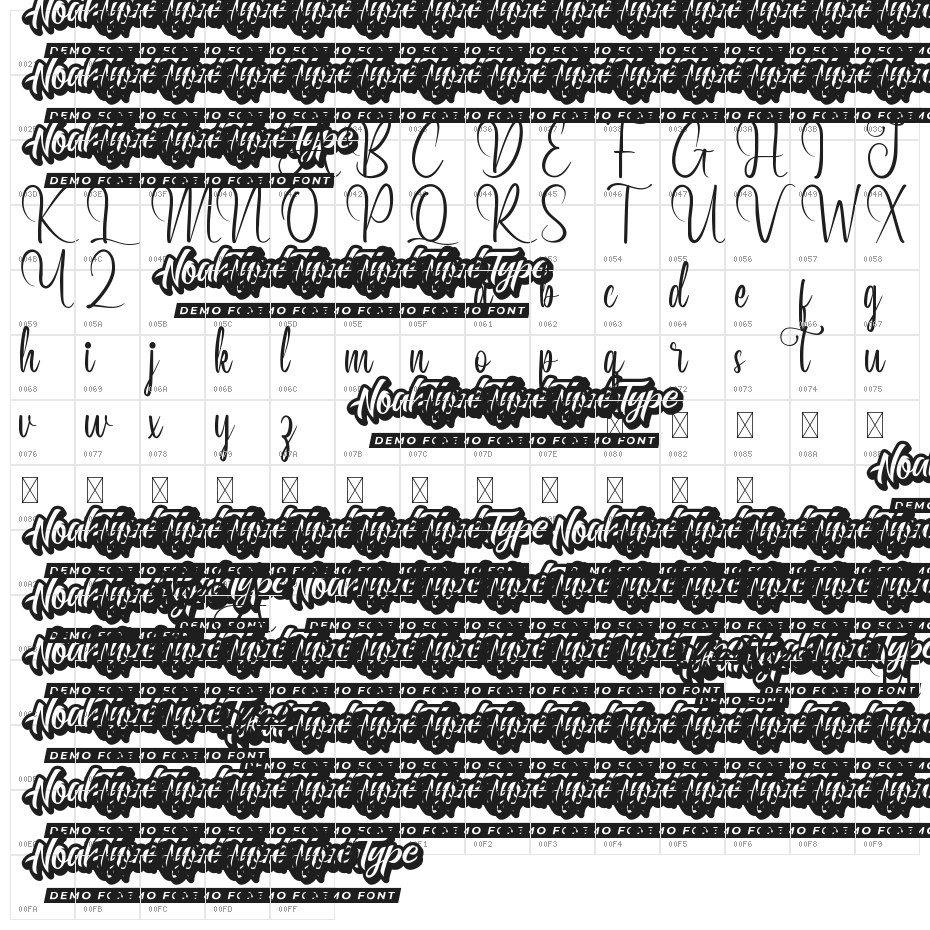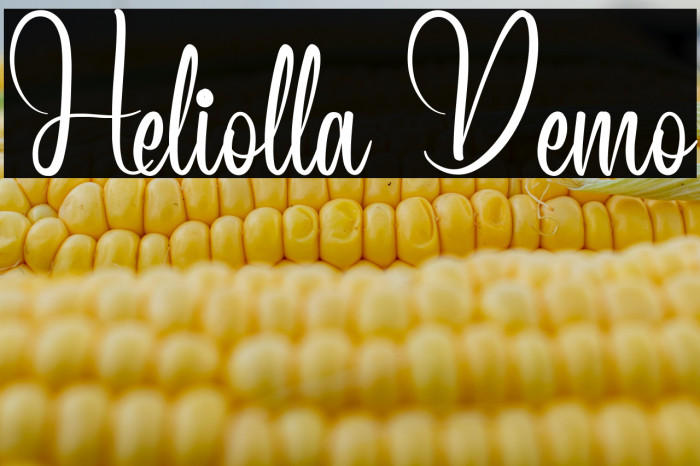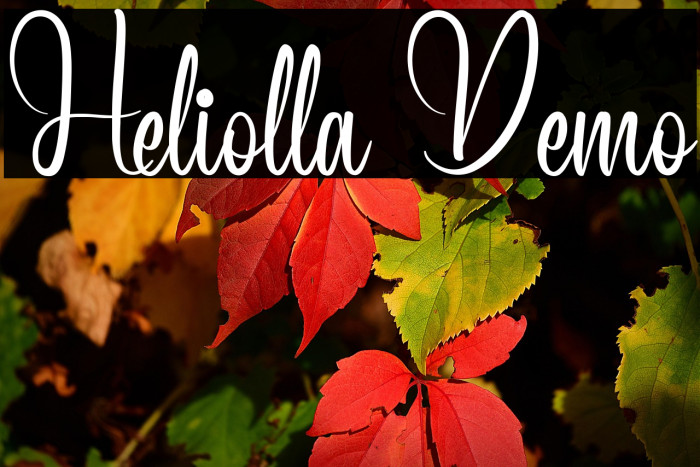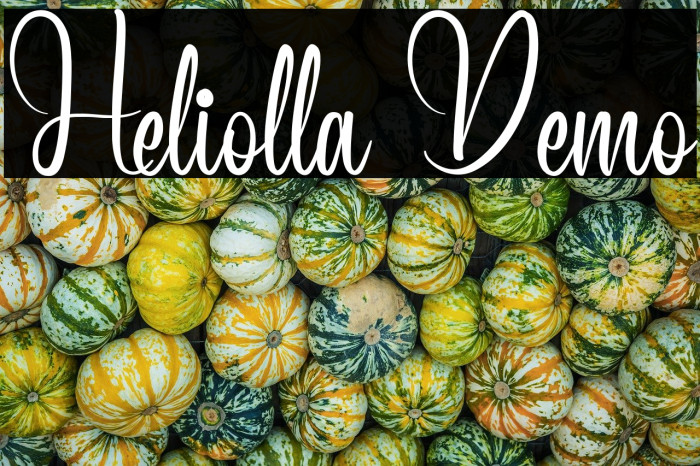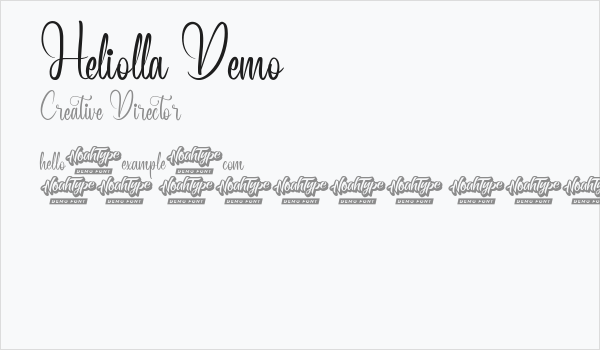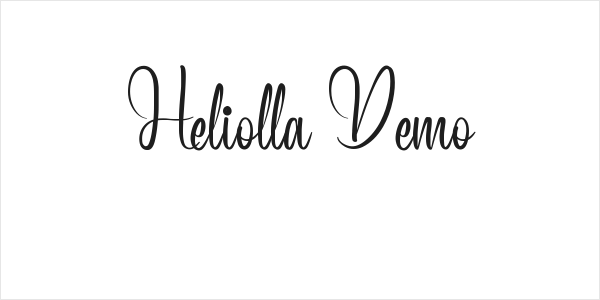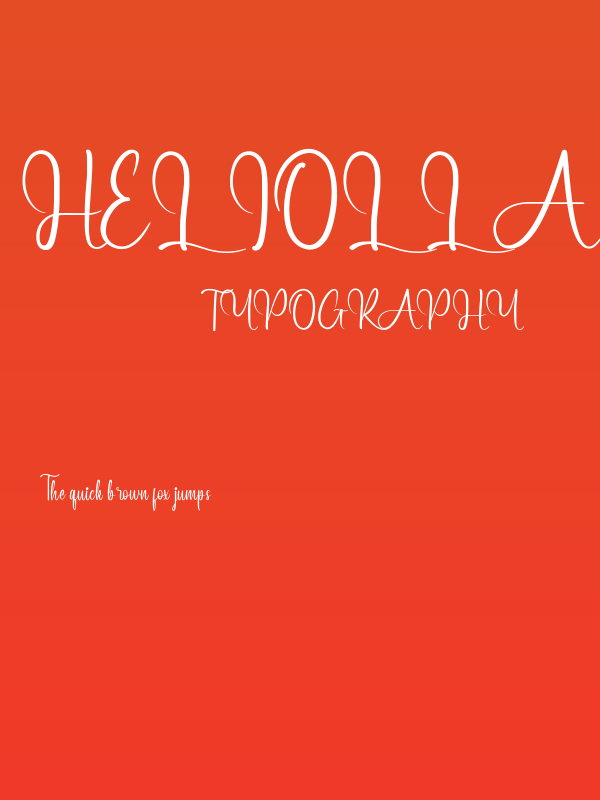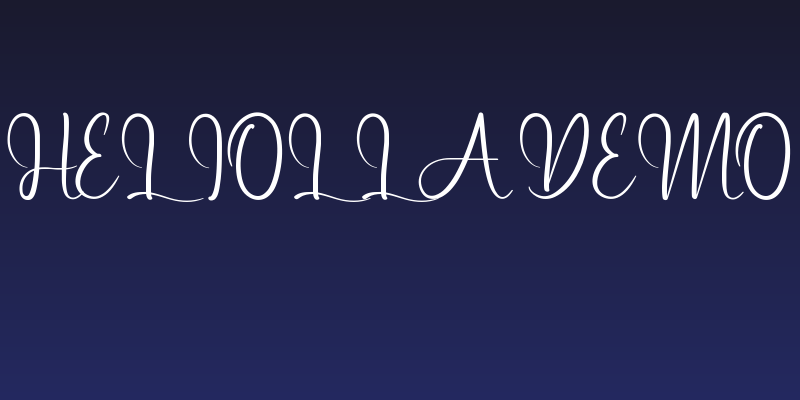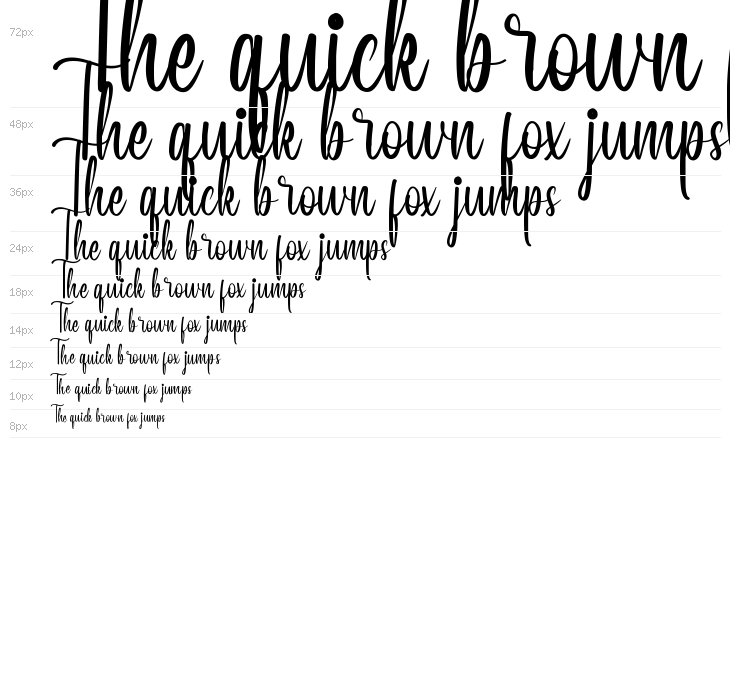
Heliolla Demo Font
Heliolla Demo Description
This font features an elegant and flowing script style, characterized by its smooth, continuous strokes and graceful curves. The uppercase letters are tall and slender, with distinctive loops and swashes that add a touch of sophistication. The lowercase letters maintain a consistent flow, with some letters extending below the baseline, enhancing its cursive appeal. The numerals and special characters are designed to complement the overall aesthetic, maintaining the same fluidity and elegance. This font is ideal for projects that require a personal, handwritten touch, such as invitations, greeting cards, or branding materials.